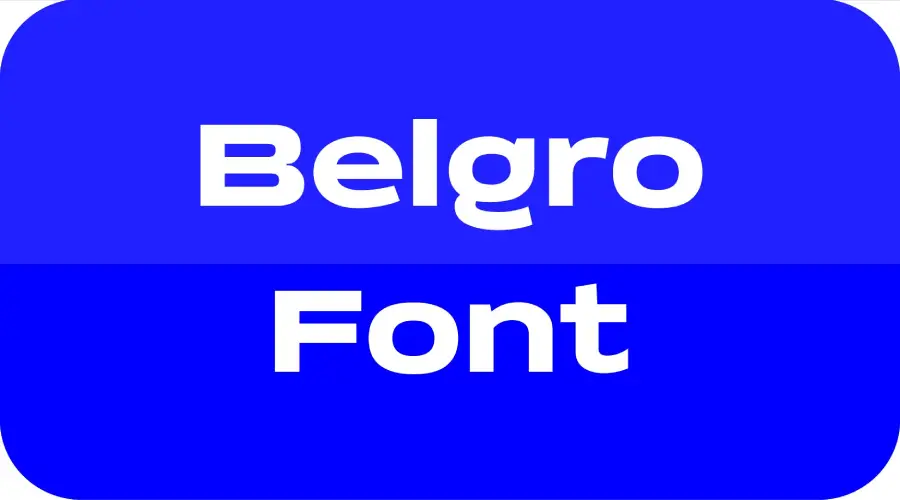
Belgro is a modern sans-serif font with a bold stroke and fun characters. It was designed and published by Maulana Creative, a font designer and typographer from Indonesia in 2022. This font combines modern, bold, fun, and retro elements in an innovative way. Featuring sharp, elegant lines and subtle curves, Belgro is both classy and funky.
Belgro Font Characteristics
This font has a few features that make it stand out among the rest. Some of them are:
• Bold Strokes: One of the defining features of the font is its bold strokes, which give it a dominant presence in any design.
• Fun Characters: It isn’t just about being bold; it’s also about having fun. Its characters come with a hint of ligatures and alternates, adding a playful touch.
• Multilingual Support: Catering to a global audience, It supports more than 100+ languages, making it versatile and inclusive.
• Versatility: Whether it’s logo design, social media graphics, movie titles, or book covers, It shines everywhere.
The functionality of the Belgro font
The Belgro font is both aesthetic and functional. You can use it to create stunning memorable and eye-catching logos. You can use alternates and ligatures to create original and original designs that reflect your brand identity. Another possible way to take advantage of the font for effective use and functionality is to use it for poster design. The Belgro font can create amazing posters that are groovy and retro. This font is ideal for bold and attention-grabbing designs.
Belgro is a great font for creative and funky designers who want to spice up their projects and branding. It is a font that combines modern, bold, fun, and retro elements. Whether you’re a professional or just starting out, Belgro is a font that will elevate your designs to the next level.